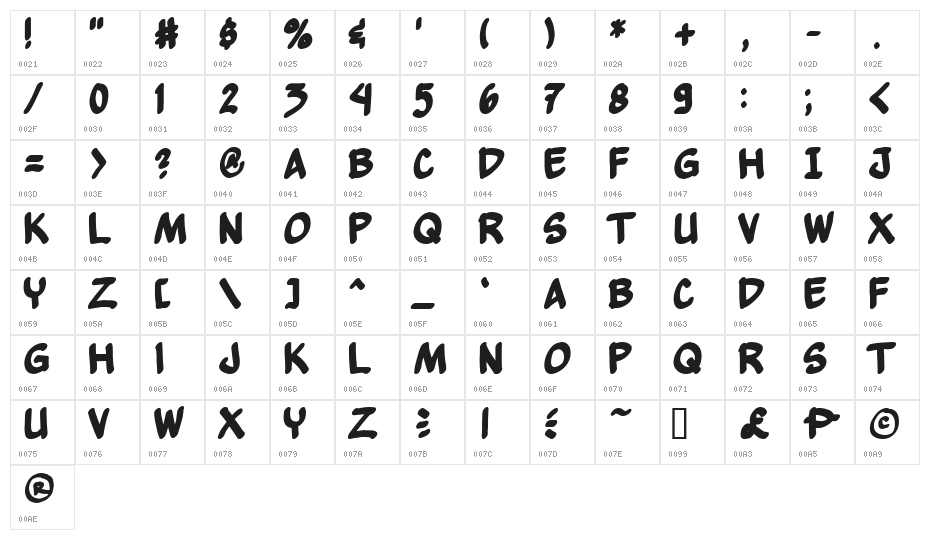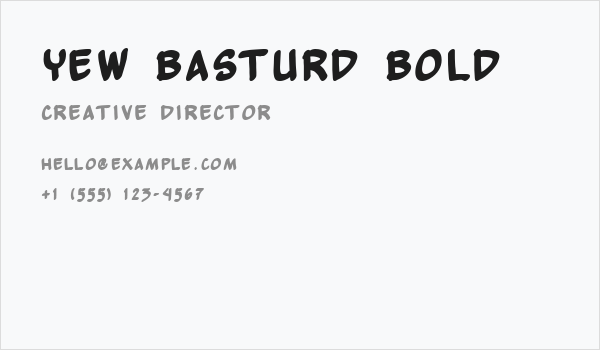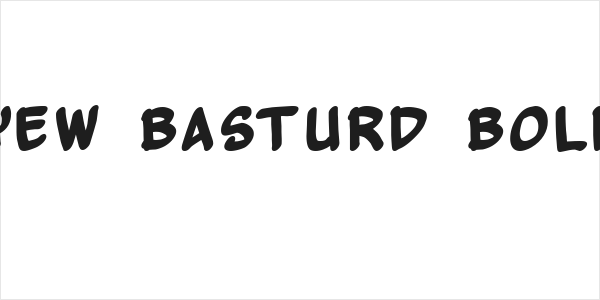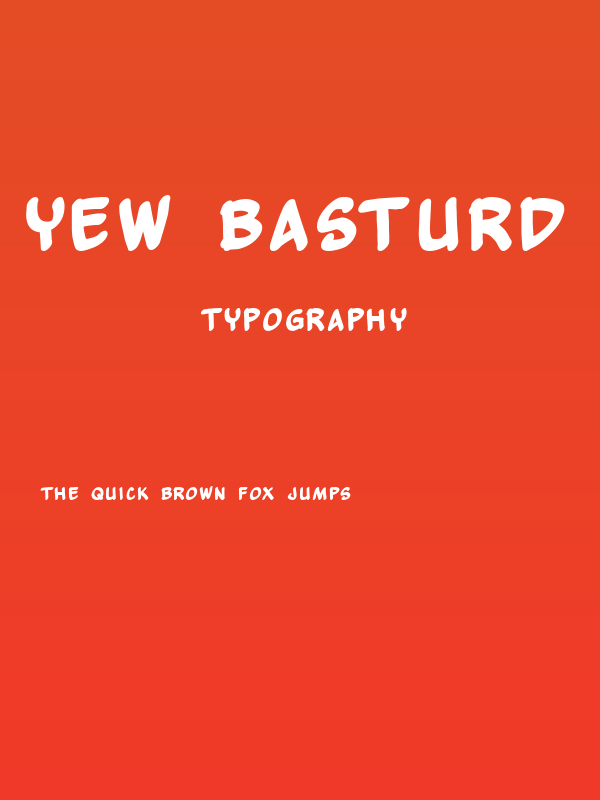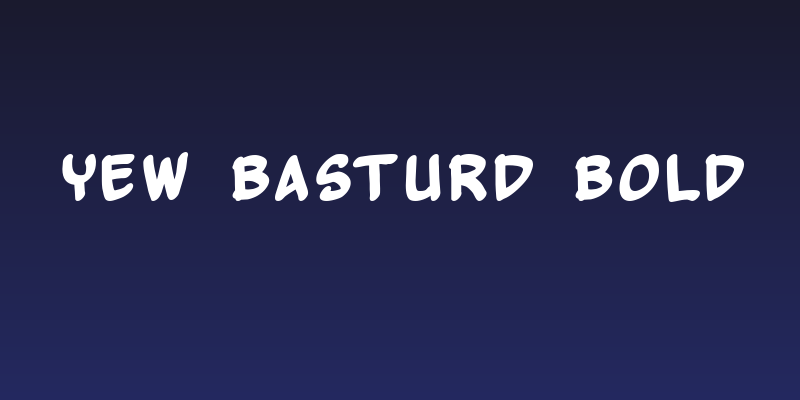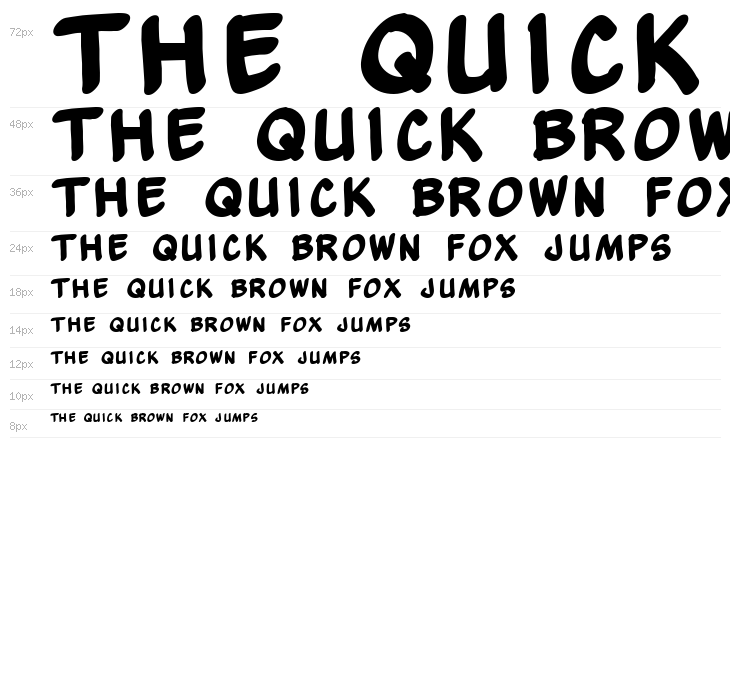
Yew Basturd Bold Font
Yew Basturd Bold Description
This bold, playful font features a handwritten style with a casual and dynamic appearance. The characters are slightly irregular, adding a sense of movement and personality. The strokes are thick and rounded, giving the font a friendly and approachable feel. The uppercase and lowercase letters maintain a consistent style, while the numerals and special characters complement the overall design. This font's unique charm makes it suitable for projects that require a touch of whimsy and creativity.
| Proposed Projects | Ideal for children's books, playful branding, greeting cards, and creative posters. |